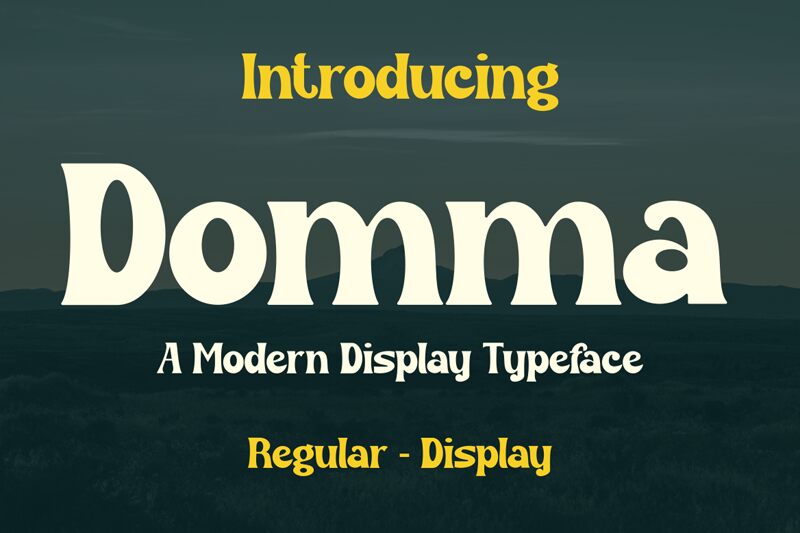
Domma
Domma font designed by Gilang Ternadho is a display font with groovy style, suitable for retro or vintage themes. Its strong and playful characters convey a sense of dynamic elegance, making it perfect for headline type designs or editorial moods. This font is built with bold glyphs that take inspiration from retro typography and charming illustrations.
Domma Font perfectly suited for various projects, from posters, logos, magazines, book covers, banners to all display designs. It could also easily be used in projects where the designer wants to create a feeling of nostalgia along with modernism.